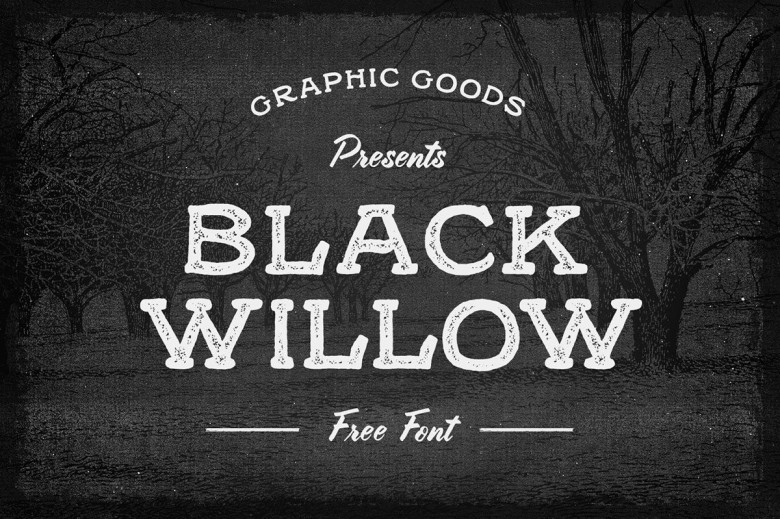
Black Willow Font
Black Willow is a free rustic font inspired by vintage handrawn signs and showcards lettering. It comes in two styles – Regular and Rough. It’s free for both personal and commercial use.